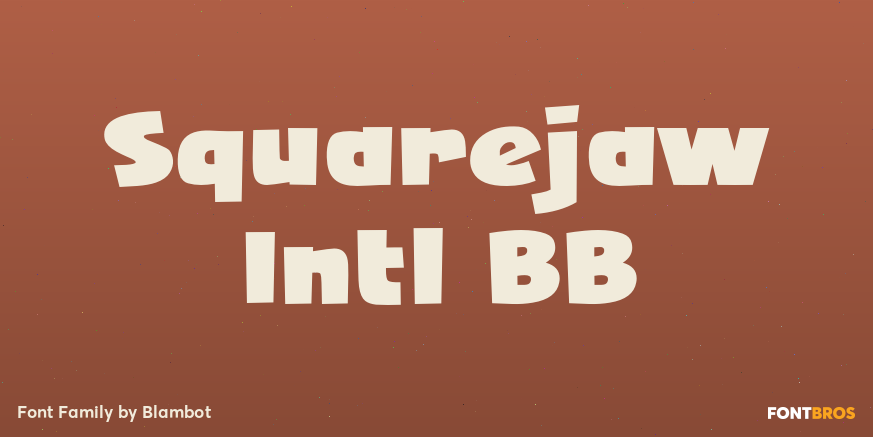
About Squarejaw Intl BB
Originally designed as an in-house font for Blambot Comic Fonts & Lettering, SQUAREJAW got so many inquiries it has finally been made public! Designed as a simple, blocky comic book sound effects font that pulls double duty with logos and titles. Available…